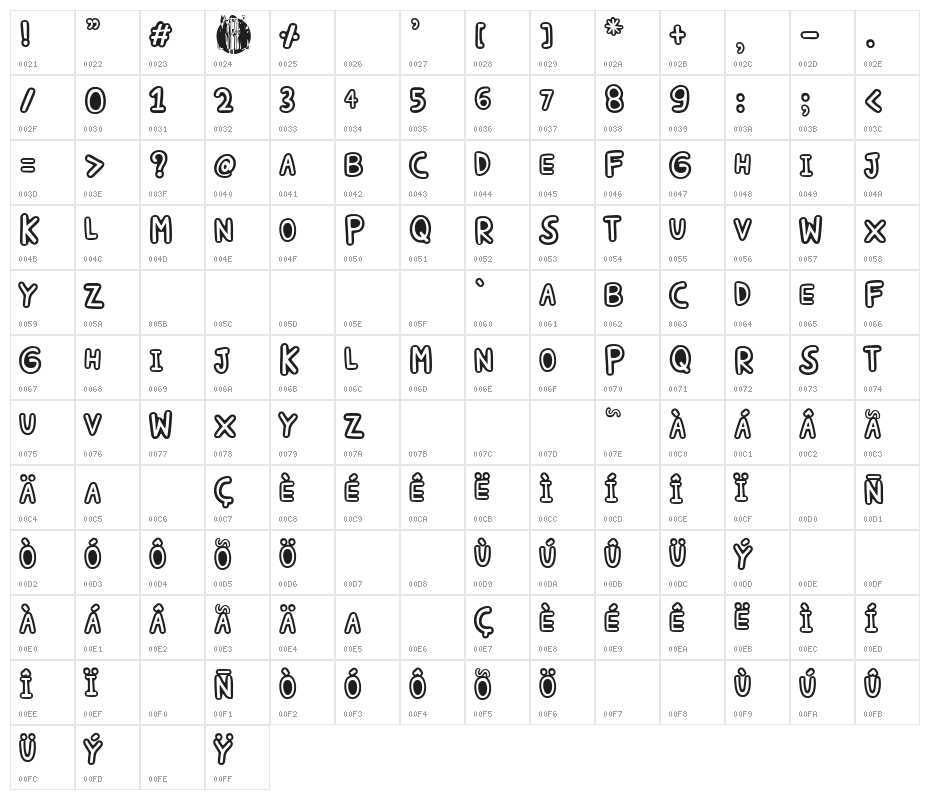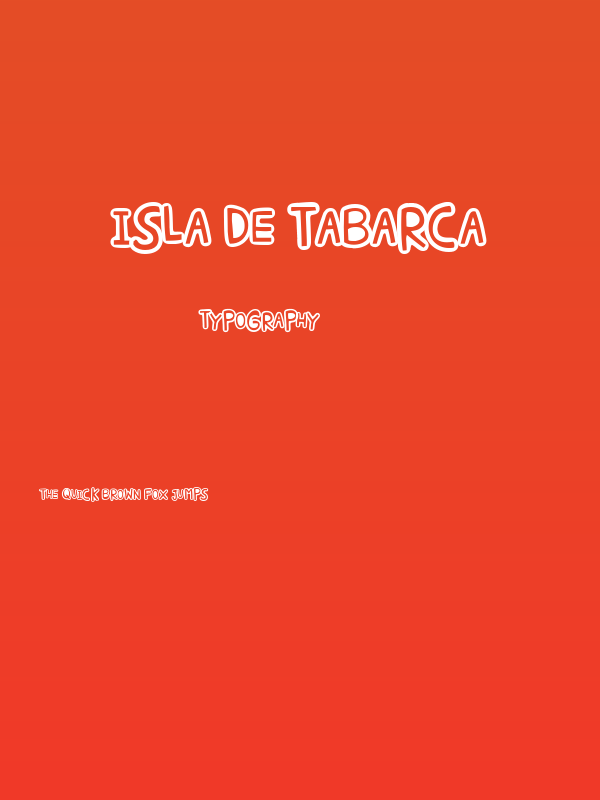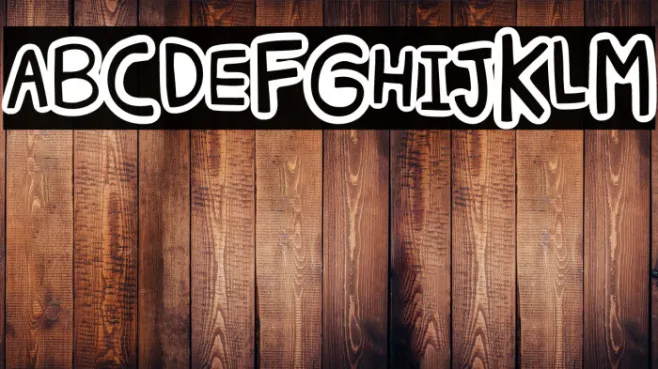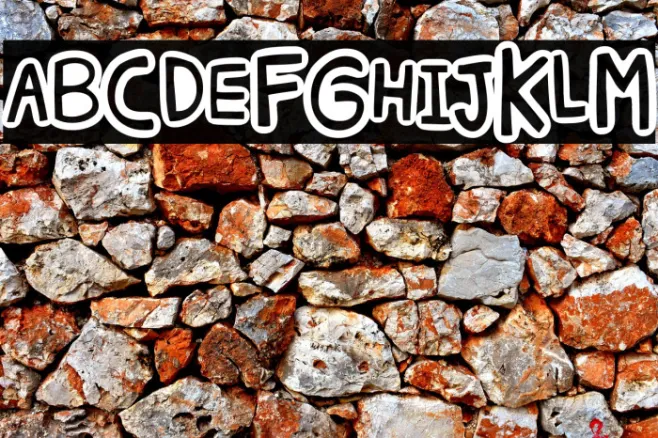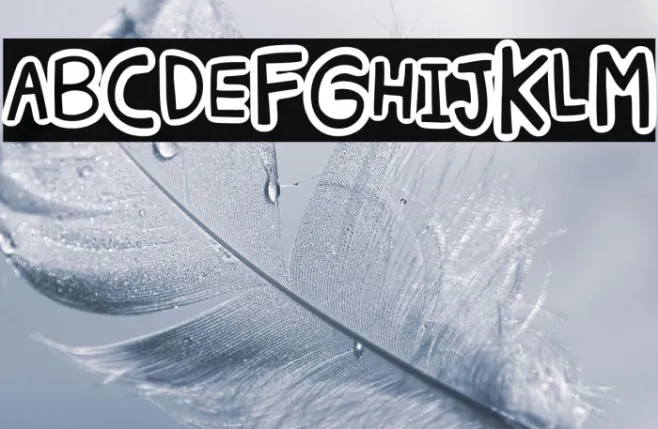
Isla de Tabarca Font
Isla de Tabarca Description
This playful and bold font features thick, rounded strokes that give it a cartoonish and friendly appearance. The letters are outlined, adding a layer of depth and making them stand out against any background. The font maintains a consistent weight throughout, with a slightly irregular shape that adds to its whimsical charm. The numbers and special characters are designed with the same playful style, making them perfect for creative projects. The overall look is casual and approachable, ideal for capturing attention in a fun and engaging way.
| Overall Style | Playful, Cartoonish |
| Proposed Projects | Ideal for children's books, comic strips, playful branding, and eye-catching posters. |